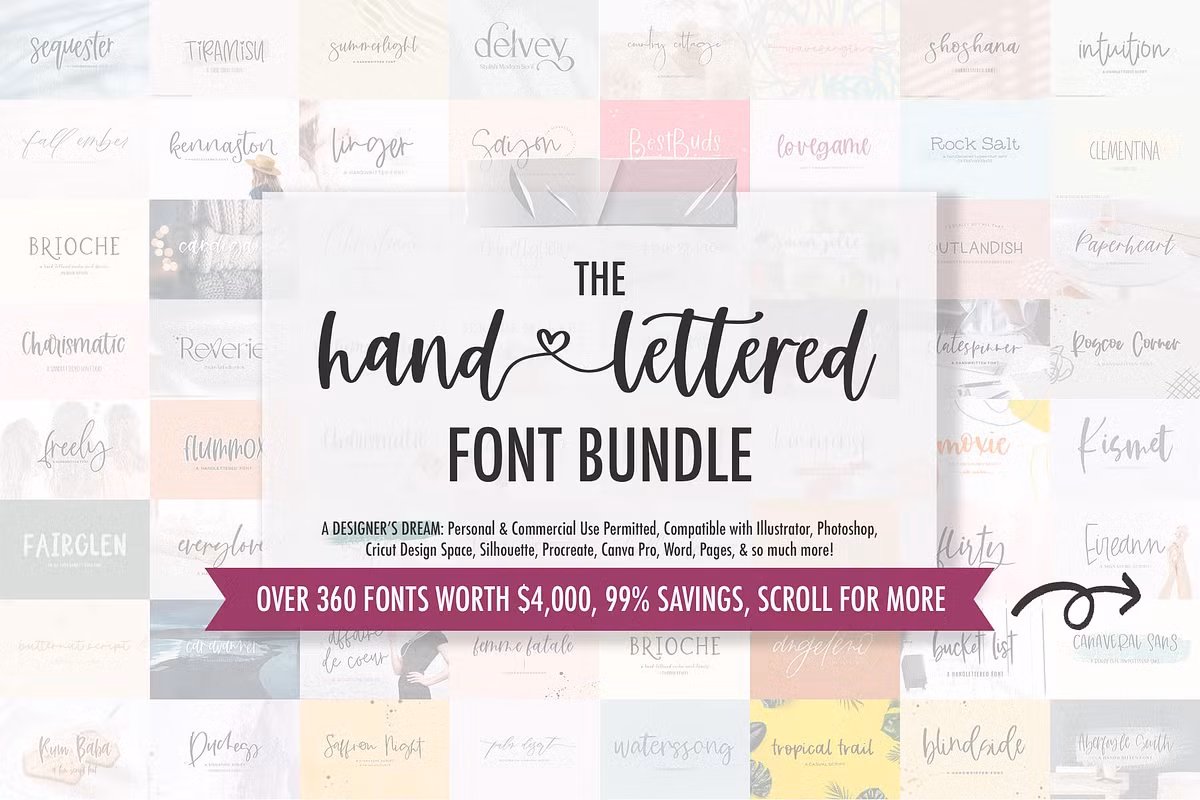
Handlettered Font Bundle Free Download is a carefully curated collection of handcrafted fonts, perfect for adding a personal, artistic touch to your design projects. Ideal for logos, invitations, greeting cards, branding, and social media content, this bundle brings warmth, charm, and versatility in one powerful package.
Featuring a range of brush, script, and marker-style typefaces, Handlettered Font Bundle Free Download allows designers to explore unique lettering styles without compromising on quality. Whether you're aiming for playful or elegant, rustic or modern, this bundle has something to suit your creative vision. Test out the fonts in your next mockup and see how they transform your work—then upgrade to a commercial license when you're ready to publish.